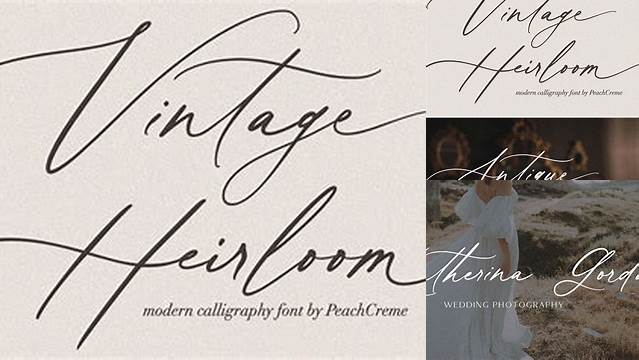
Free Vintage Calligraphy Fonts: Heirloom Style Guide
Alright, guys, let's dive into the world of beautiful fonts, shall we? Today, we're talking about vintage heirloom calligraphy font free! Finding the perfect font can feel like a treasure hunt, especially when you're aiming for that timeless, elegant vibe. Whether you're designing wedding invitations, creating a vintage-inspired logo, or just sprucing up your social media posts, the right calligraphy font can make all the difference. The best part? There are tons of fantastic free options out there just waiting to be discovered. This guide will walk you through some of the best vintage heirloom calligraphy font free fonts, their unique characteristics, and how to use them to create stunning designs. We'll explore everything from classic scripts to more modern interpretations, helping you find the perfect font to capture that cherished heirloom feel. So, grab your coffee, settle in, and let's explore the world of free vintage calligraphy!
H2: Unveiling the Allure of Vintage Calligraphy Fonts
So, what's the big deal about vintage heirloom calligraphy font free? Why are these fonts so incredibly popular, and what makes them stand out from the crowd? Well, for starters, they evoke a sense of history, romance, and sophistication that's hard to replicate with other font styles. They transport us to a time of handwritten letters, meticulously crafted signs, and a general appreciation for the art of beautiful writing. The elegance of a well-executed calligraphy font instantly elevates any design, giving it a touch of class and authenticity. These fonts are often characterized by flowing strokes, delicate curves, and a sense of fluidity that mimics the movement of a skilled calligrapher's hand. Using a vintage heirloom calligraphy font free allows you to add a personal touch to your designs. This level of detail and artistry makes your work stand out, as it tells a story and grabs attention instantly. Think of those beautiful old-fashioned letters you find in antique stores. They speak of a different time, a time when communication was slow and considered. These fonts carry that same essence.
One of the key appeals of vintage heirloom calligraphy font free is their ability to create a sense of nostalgia. Whether you're designing something related to a historical event, a classic brand, or simply want to inject a feeling of warmth and tradition into your work, these fonts are the perfect choice. They often come with unique features like ligatures (where two or more letters are joined together for a more natural flow) and alternative glyphs (different versions of the same letter), which allow you to customize the look and feel of your text even further. Furthermore, these fonts offer a wide range of options, from delicate and airy scripts to bolder and more dramatic styles, ensuring that you can find the perfect match for your particular project. Whether you're a seasoned designer or just starting, these fonts can give you an amazing artistic advantage. These fonts are like a time machine, bringing back moments of history that are long gone.
H2: Essential Characteristics of Heirloom Calligraphy Fonts
Alright, let's get down to the nitty-gritty. What exactly defines an vintage heirloom calligraphy font free and what should you look out for when searching for the perfect one? Well, the first thing to note is the overall style. These fonts tend to be graceful and elegant, often with a slightly faded or distressed look to add to their vintage charm. They may feature elaborate flourishes, swooping curves, and varying line thicknesses, all of which contribute to their unique character. The best vintage heirloom calligraphy font free will often mimic the appearance of traditional calligraphy, with its flowing strokes and deliberate spacing. Look for fonts with a good balance between readability and artistic flair. While these fonts are all about aesthetics, it is also essential that the text can be easily read and understood by the audience. The quality of the font is also crucial. You want a font with well-defined letterforms and smooth curves. A poorly crafted font can look amateurish and ruin the overall effect. Pay attention to the details like the ligatures and alternative glyphs, as these can enhance the overall aesthetic and give your text a unique touch.
Another critical aspect is the versatility of the font. A good vintage heirloom calligraphy font free should work well in various applications, from headings and titles to body text and decorative elements. It should be adaptable to different design projects and able to maintain its charm across different media and sizes. If you're planning to use the font for print materials, it's essential to consider its resolution. Some free fonts are only suitable for online use, while others are optimized for both print and digital applications. Consider the character set of the font, too. Does it include the necessary symbols, punctuation marks, and international characters? Make sure that the font supports your target audience and the language you are using. All these elements will affect how you design the font you need. Some are very specific, but others are quite versatile. Be sure to choose the right one for your project.
H2: Mastering Font Pairing: Combining Calligraphy with Other Styles
One of the keys to a stunning design is font pairing, the art of combining different fonts to create a harmonious and balanced look. When working with vintage heirloom calligraphy font free, it's essential to choose a complementary font that enhances the overall design without competing with the calligraphy. One popular approach is to pair a calligraphy font with a clean, sans-serif font. This creates a nice contrast, with the elegance of the calligraphy balanced by the simplicity of the sans-serif. This combination is suitable for wedding invitations or branding projects that need a touch of sophistication with good readability. Consider using a serif font with the calligraphy. Serif fonts are known for their little strokes at the end of the letters and evoke a sense of tradition and sophistication. This pairing complements the vintage style and works well for longer blocks of text, such as in books or articles.
Another exciting pairing is combining a calligraphy font with a bold or blocky font. This contrast of delicate and strong styles grabs attention and makes a statement. This type of pairing is perfect for creating logos or headlines that stand out. To help you pair the fonts, consider their characteristics. Match fonts with similar moods. If your calligraphy font is romantic and delicate, pair it with a font that conveys the same feeling. When in doubt, stick to the basics. Experiment with different font combinations to find what suits your aesthetic and project. Websites like FontPair offer pre-made pairings, making it easier to discover great font combinations. Always remember that the goal is to create a design that is both aesthetically pleasing and easy to read. So, choose your fonts wisely and have fun experimenting! There are many ways to design a font, and pairing them correctly is essential.
H2: Designing with Free Vintage Calligraphy Fonts: Practical Tips
So, how do you actually put those stunning vintage heirloom calligraphy font free fonts to good use? Here are some practical tips and tricks to help you create amazing designs. First, choose the right font for the project. Not all calligraphy fonts are created equal, so select the one that best fits the style and message you want to convey. For wedding invitations, a delicate and romantic script might be perfect, while a bolder, more dramatic font is better for headlines or logo design. Ensure you consider the readability of your chosen font, especially when it comes to longer blocks of text. Some calligraphy fonts are better suited for titles, while others work well for body text. Another tip is to make sure the font is the focal point. Use it wisely. You do not want to overdo it or make the text feel cluttered. Instead, use it sparingly to highlight key information or important details.
H2: Using Calligraphy Fonts for Digital Art and Design
Okay, so you've got these amazing vintage heirloom calligraphy font free and now you want to know how to apply them to your digital artwork, right? The great news is that the process is relatively straightforward, and the results can be stunning. One of the first things you will need to do is choose the right software. Many graphic design software options support calligraphy fonts, like Adobe Photoshop, Adobe Illustrator, and Canva. These programs offer a wealth of tools for editing and manipulating the text. Adobe products are ideal if you're looking for a professional setup. Canva is another great option because it is easy to use. After you have chosen your software, you need to install the font. The process will vary depending on your operating system and software, but it's usually pretty easy. For example, on Windows, you can typically install the font by right-clicking on the font file and selecting